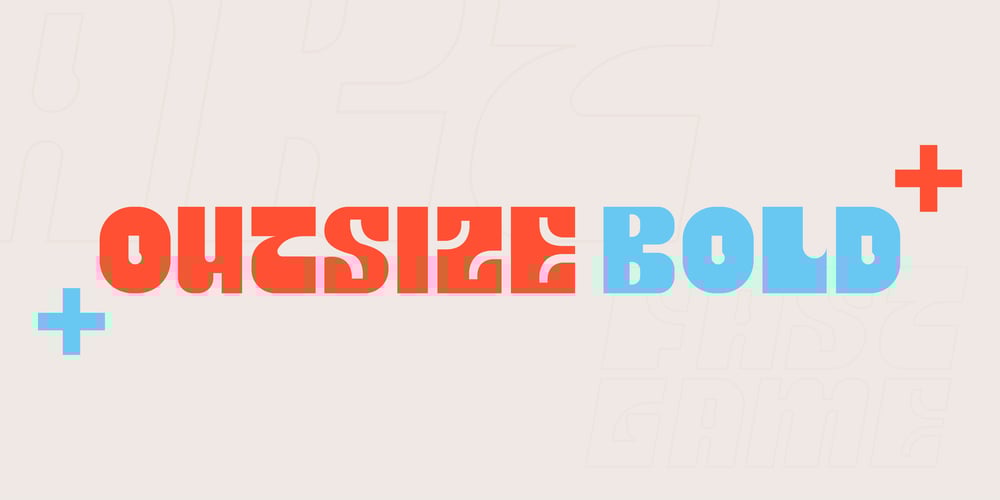
Outsize
Outsize font
Outsize Font Family was designed by Dishant Mehlawat and published by Sanyukt Foundry. Outsize contains 2 styles and family package options. Bold Future is an extremely heavy font. It has numerous interesting characters, with the counter and aperture giving it a unique personality. Ideal for enormous titles, publicizing, naming, bundling and anything that needs a major, significant typeface.